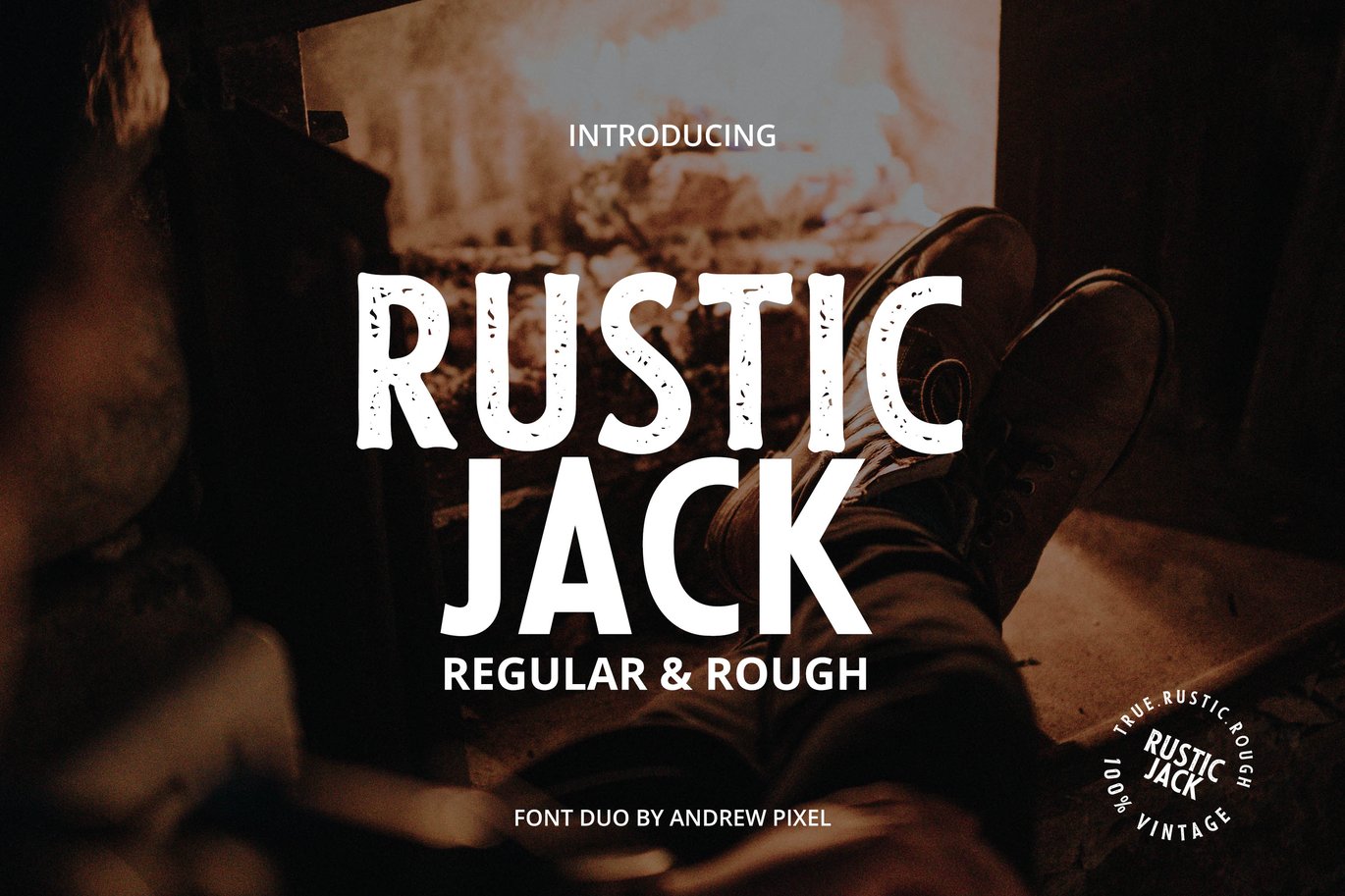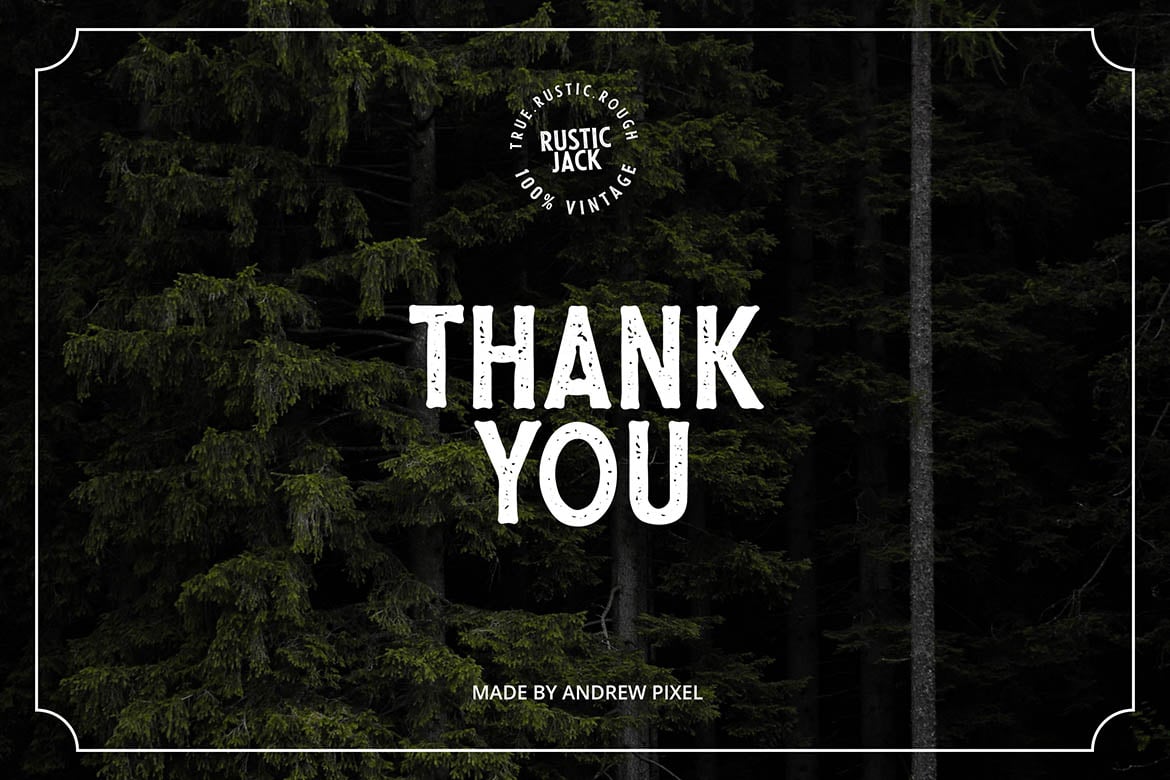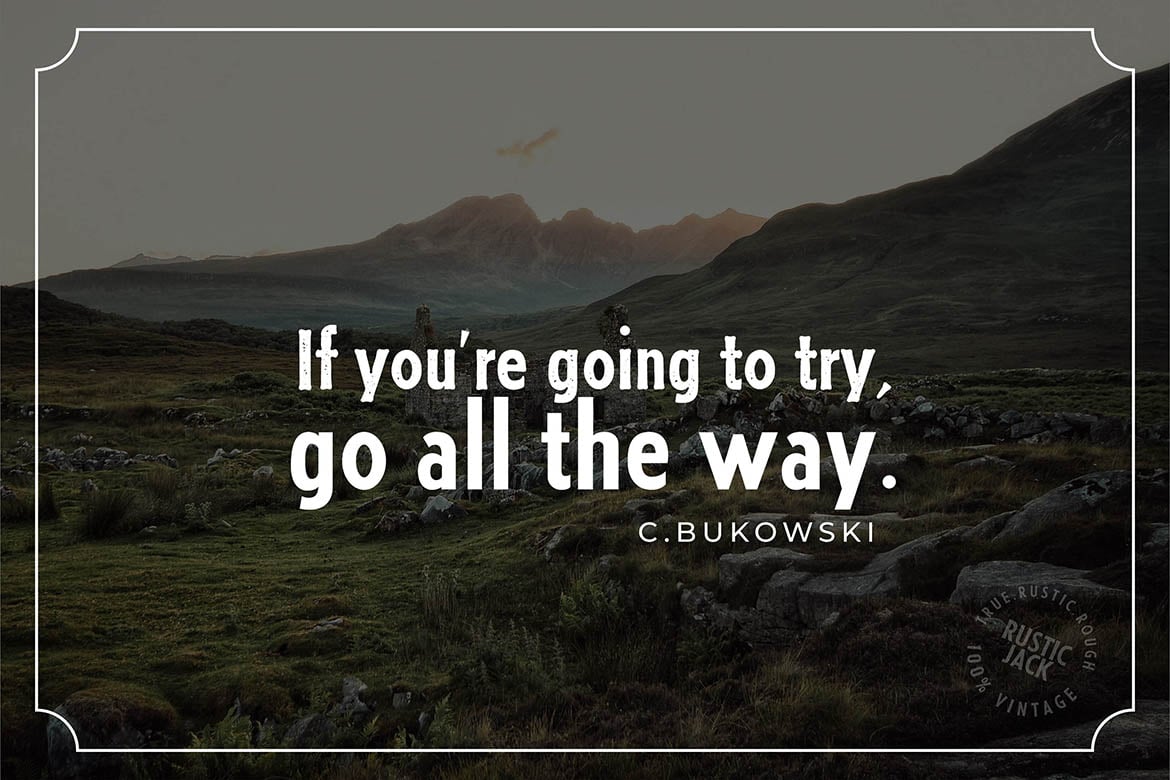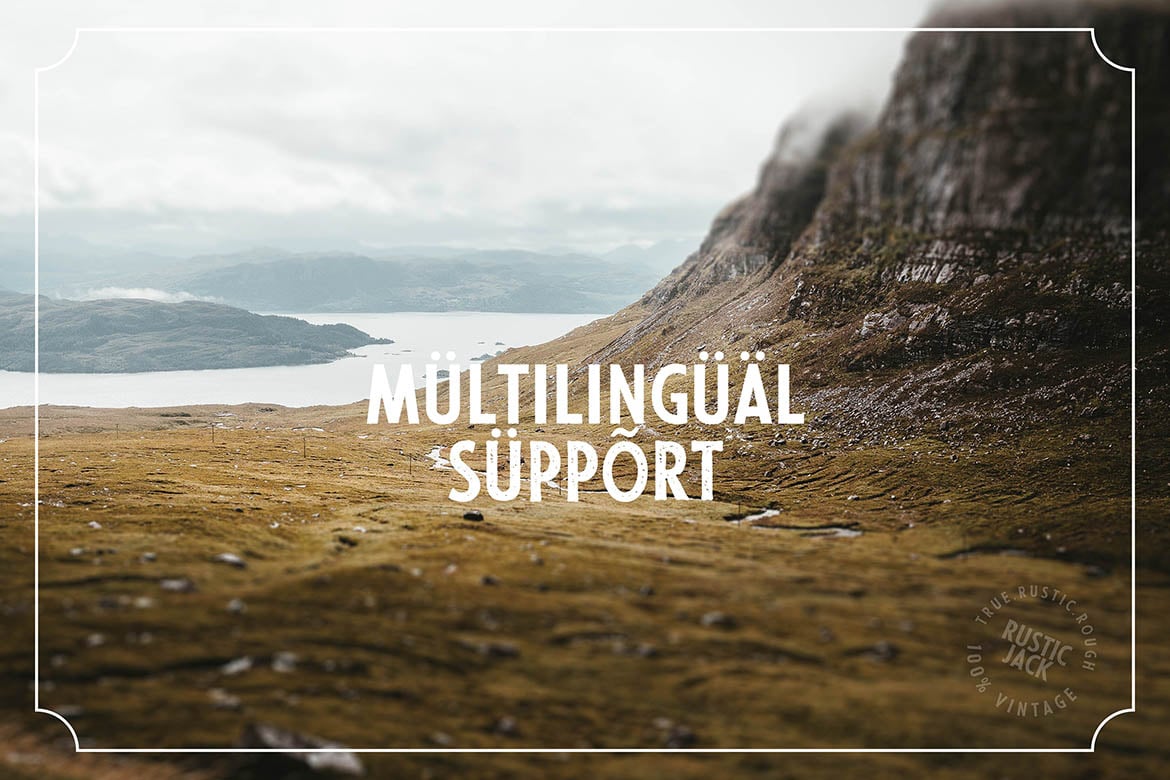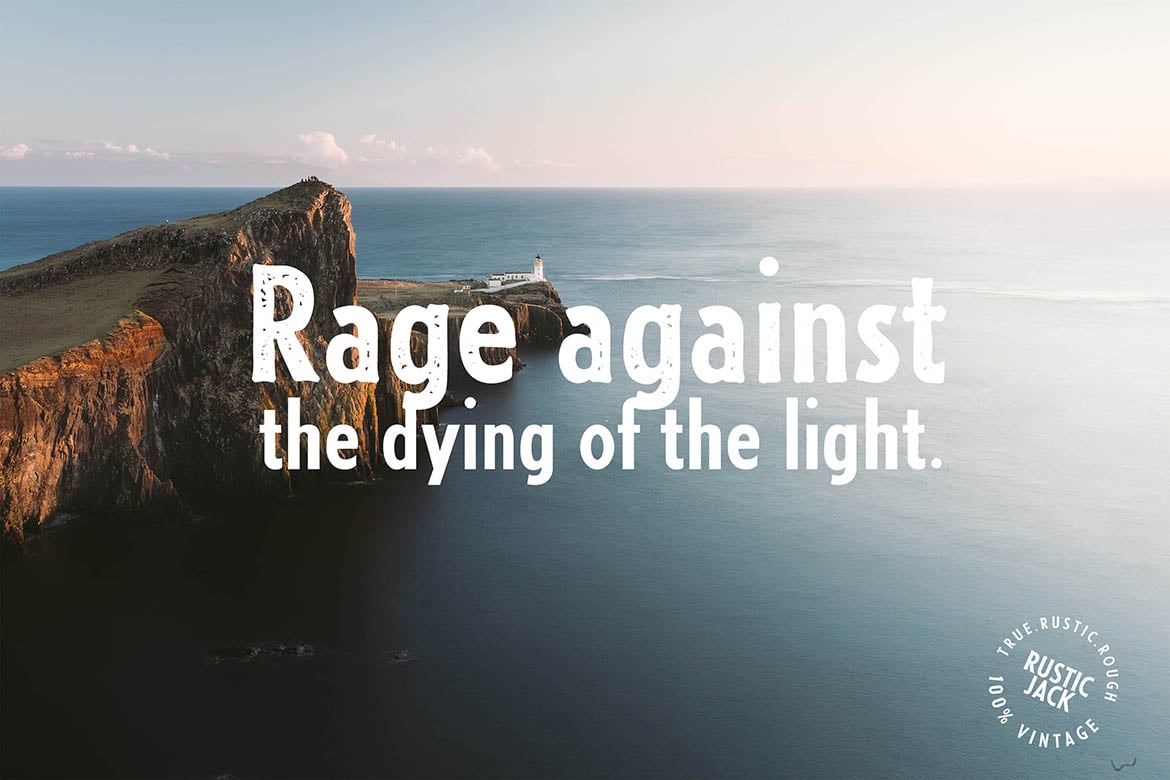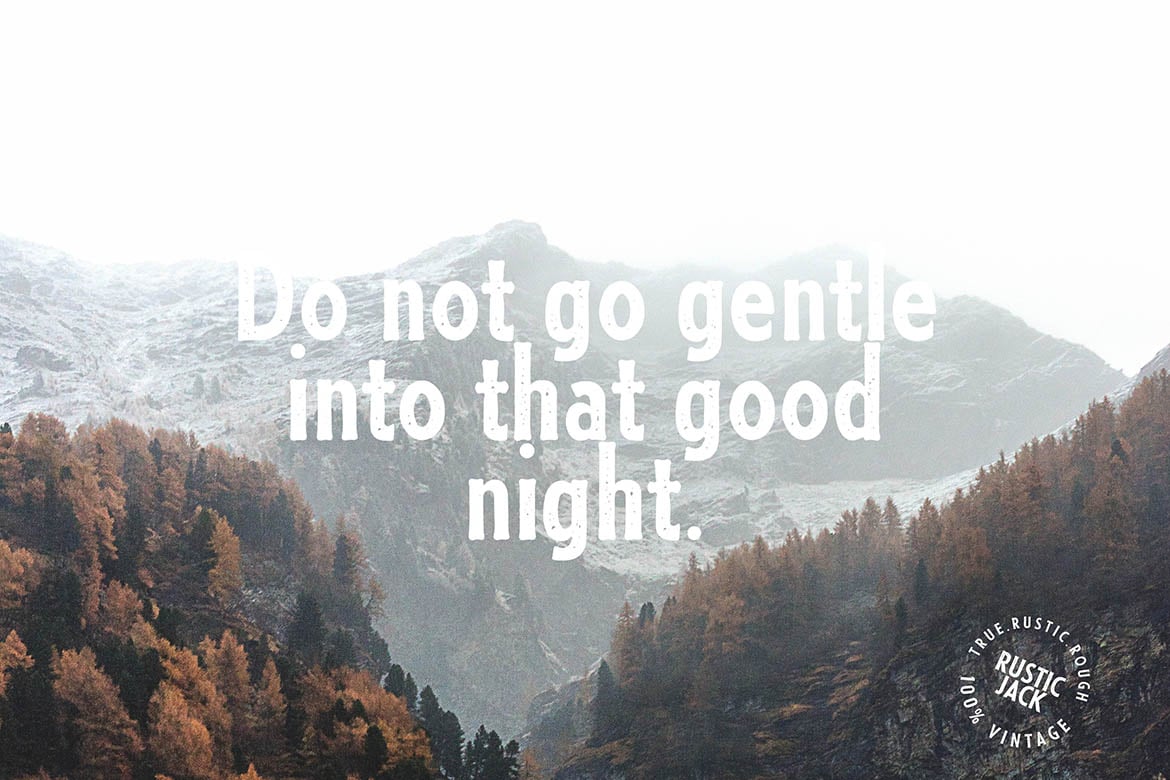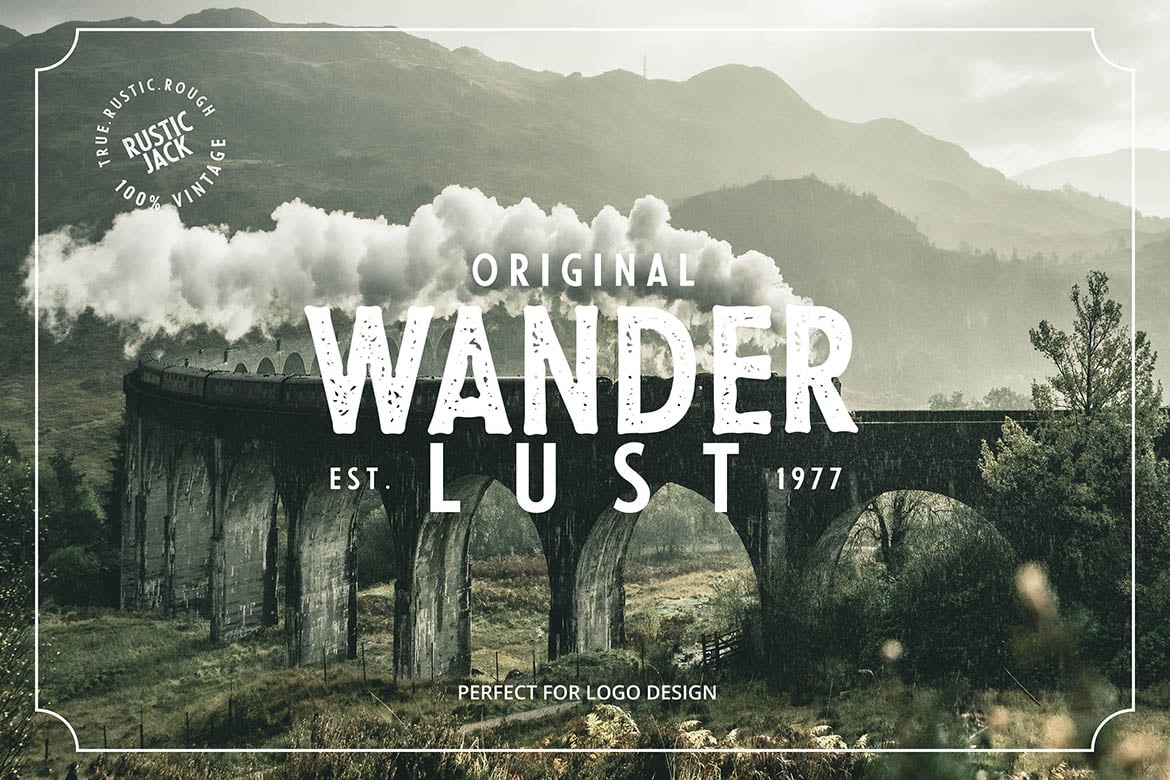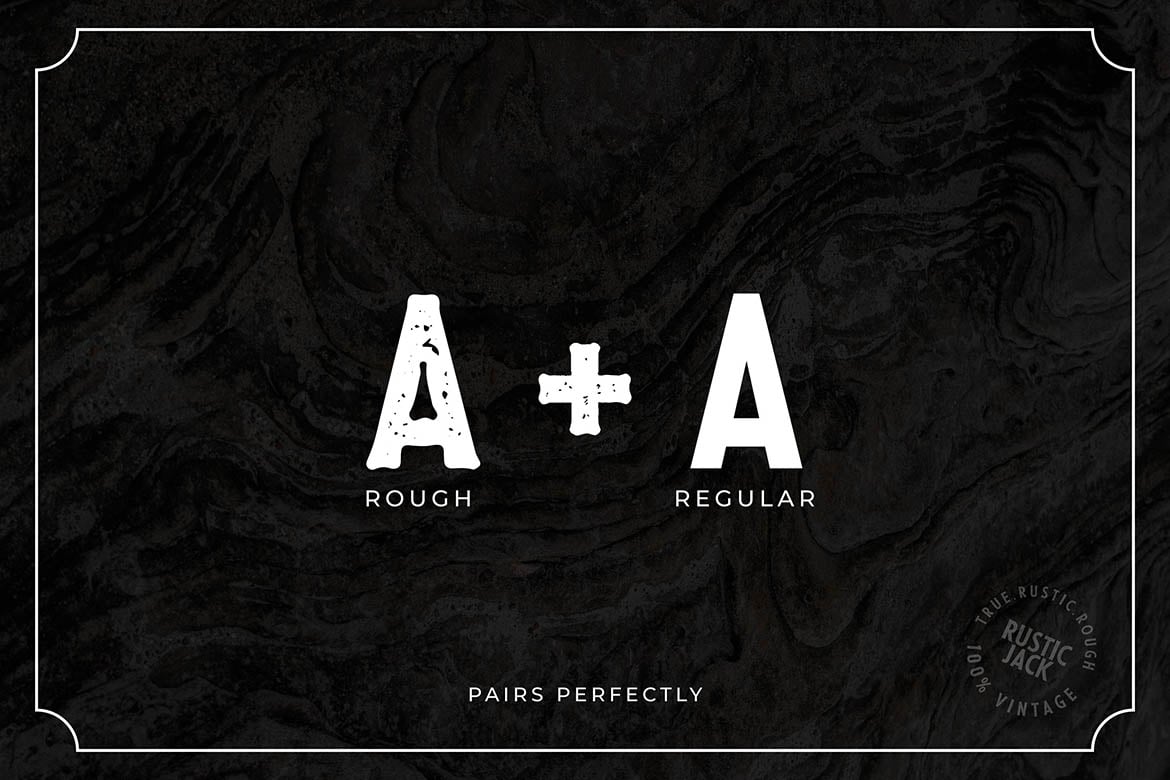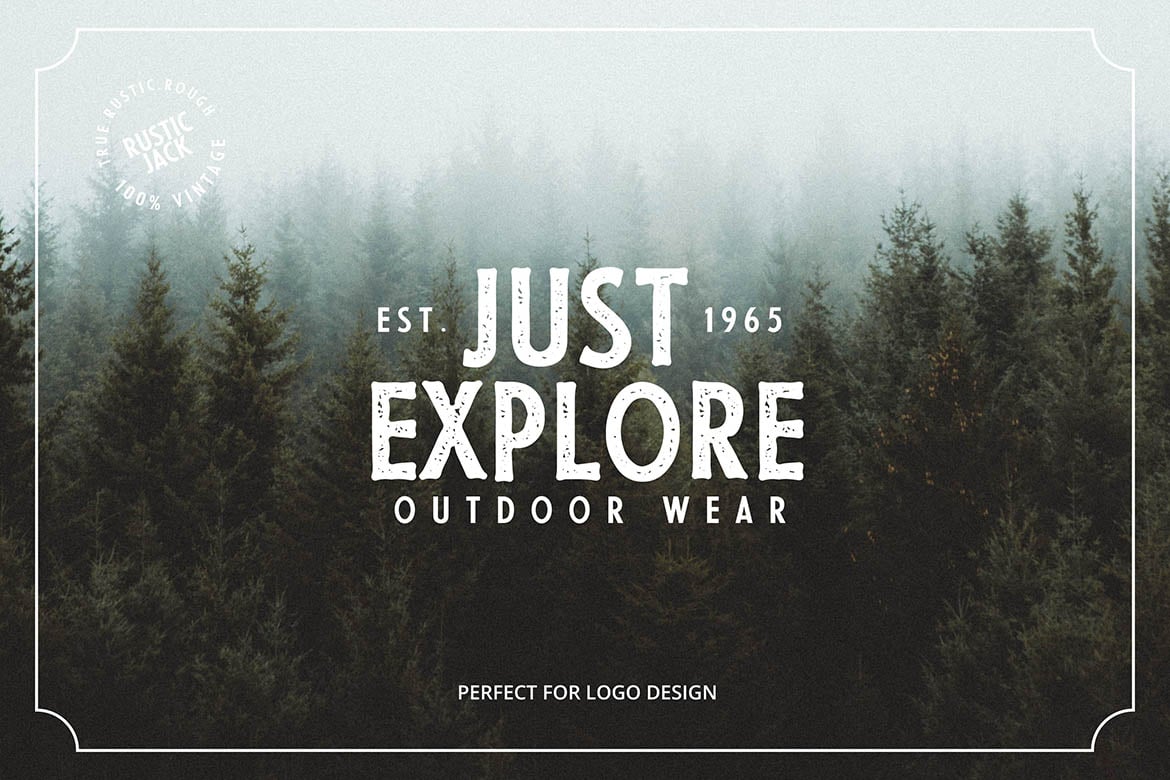
Rustic Jack – A Vintage Font Duo
Introducing Rustic Jack – A Vintage Font Duo with a Clean and Rustic Version that suits perfectly for titles and logos. The font has a bit of a rough & rustic vibe , which makes it perfect for all kinds of vintage logo & branding projects.
Rustic Jack is a perfect addition to your vintage font library!